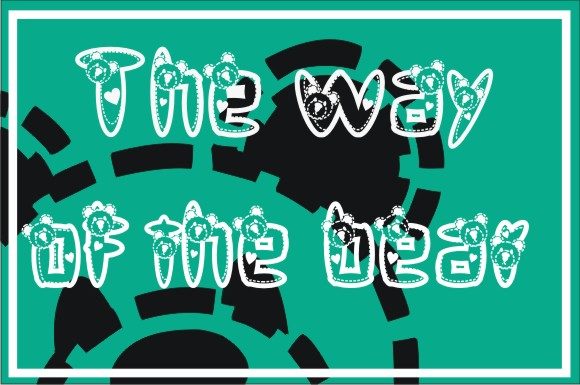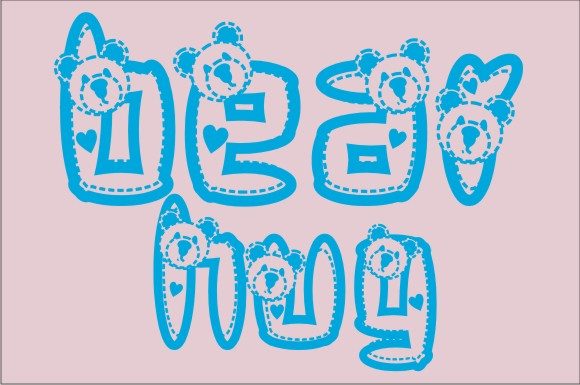
Bear Font: Add a Touch of Whimsy to Your Designs with this Adorable Decorative Font
Are you looking for a font that can add a dash of fun and playfulness to your designs? Look no further than the Bear Font! This delightful decorative font features a cute bear face stitched onto each letter, making it perfect for kids and school projects, as well as any design that needs a touch of whimsy.
What is Bear Font?
Bear Font is a unique and charming decorative font that is sure to capture the hearts of designers, crafters, and anyone who loves a good dose of cuteness. Each letter in the font features a adorable bear face stitched onto it, giving it a childlike playfulness that’s hard to resist.
Key Features of Bear Font
- Cute bear face on each letter: The standout feature of Bear Font is undoubtedly the cute bear face that’s stitched onto each letter. The bear faces are intricately designed and add a touch of whimsy to any text.
- Childlike playfulness: Bear Font is perfect for designs that require a playful and carefree touch. The font is sure to bring a smile to anyone’s face!
- Perfect for kids and school projects: Bear Font is an excellent choice for kids and school projects, such as posters, presentations, and worksheets. The font is sure to make learning fun and engaging!
How to Use Bear Font
Bear Font is incredibly versatile and can be used for a wide range of design projects, including:
- Kids’ party invitations: Create adorable invitations for kids’ parties with Bear Font. The font is sure to set the tone for a fun and playful celebration!
- School projects: Use Bear Font to make school projects more engaging and fun. The font is perfect for posters, presentations, and worksheets.
- Crafting projects: Bear Font is a great addition to any crafting project, such as handmade cards, gift tags, and scrapbooking pages.
- Digital designs: Use Bear Font to add a touch of whimsy to your digital designs, such as social media graphics, blog posts, and website headers.
Tips for Using Bear Font
Here are some tips for using Bear Font effectively:
- Pair with a simple font: Bear Font is a decorative font, so it’s best to pair it with a simple font to create visual balance.
- Use it sparingly: While Bear Font is adorable, it can be overwhelming if used excessively. Use it sparingly to add a touch of whimsy to your designs.
- Experiment with colors: Bear Font looks great in a variety of colors, so don’t be afraid to experiment and find the perfect hue for your design.
Bear Font is a delightful decorative font that’s sure to bring a touch of whimsy to your designs. With its cute bear face on each letter and childlike playfulness, it’s perfect for kids and school projects, as well as any design that needs a dash of fun. So why not give Bear Font a try and see how it can add a touch of magic to your designs?
Whether you’re a designer, crafter, or simply someone who loves a good dose of cuteness, Bear Font is sure to capture your heart. So go ahead, get creative, and brighten up your designs with this adorable font!